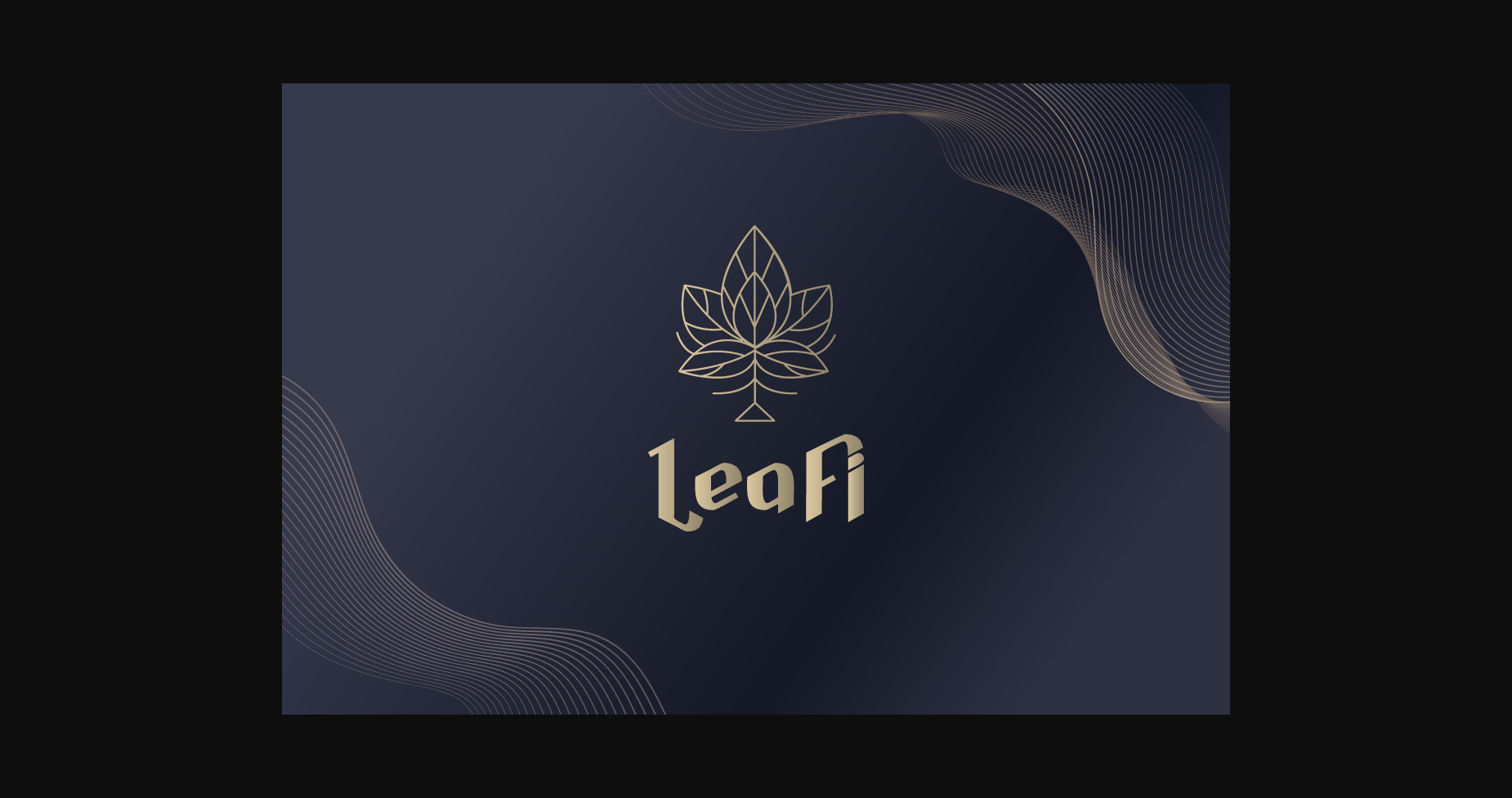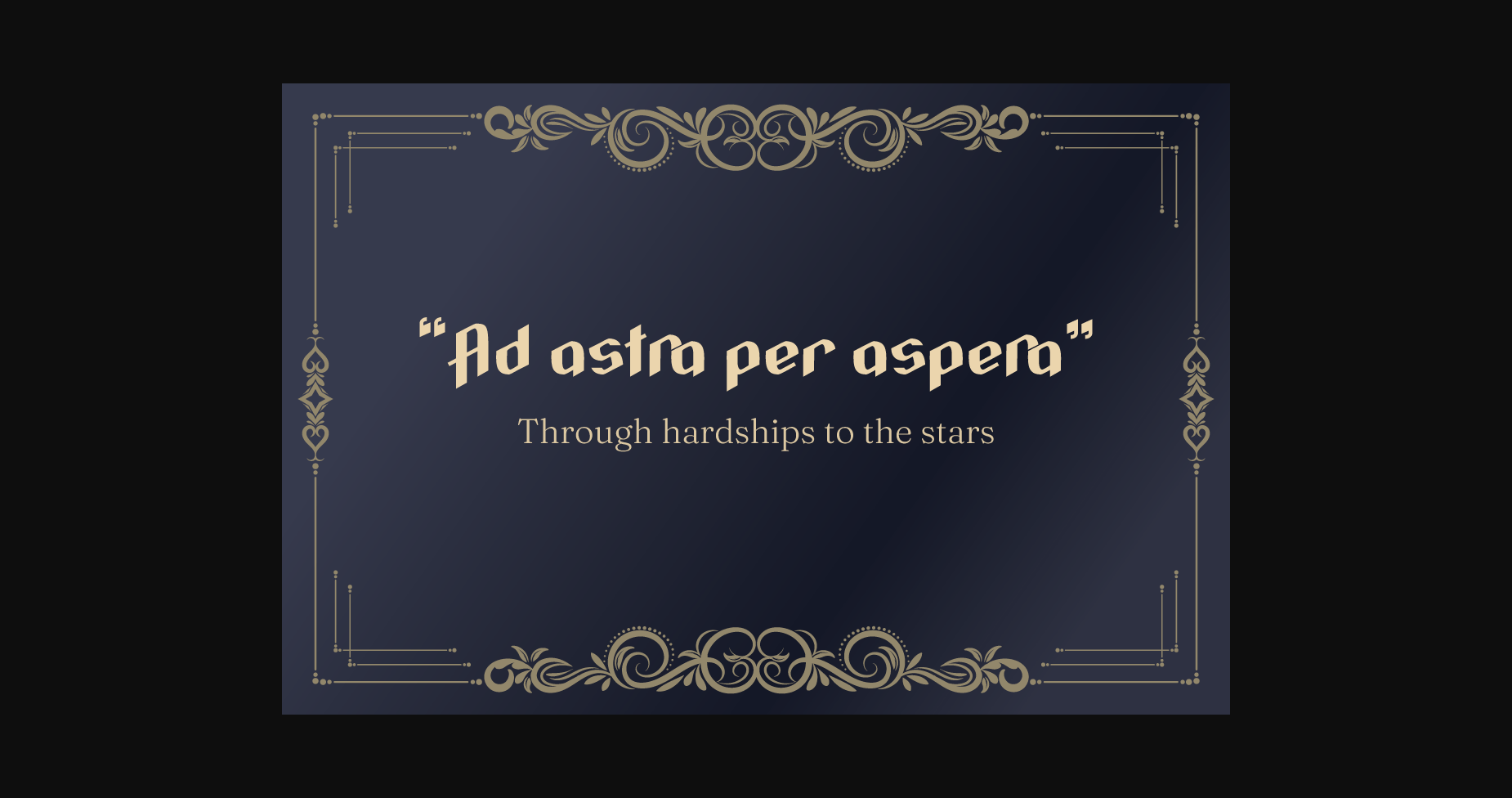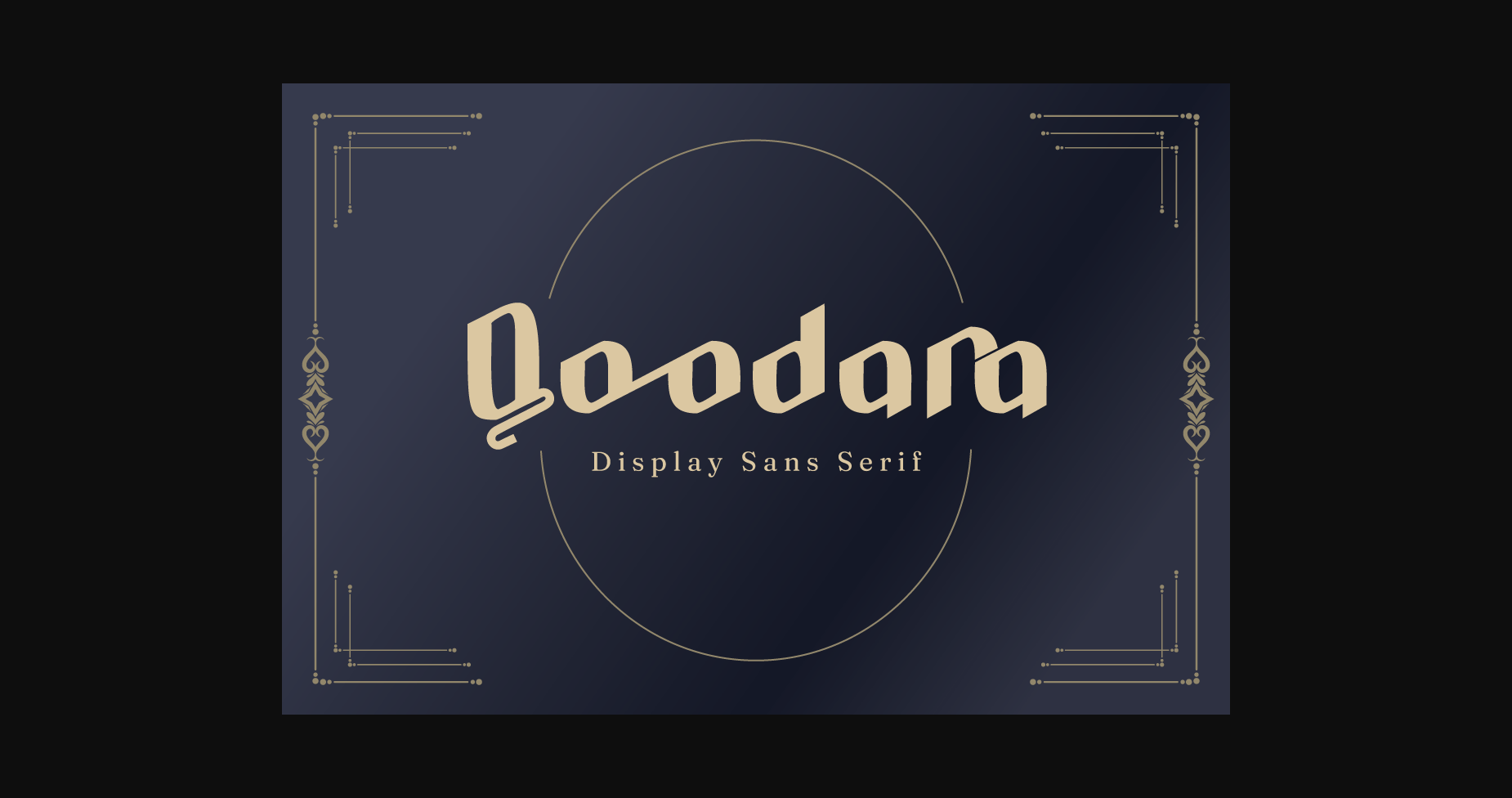
About Qoodara Font
Qoodara is a Display sans serif typeface that is suitable for strong and modern looks on your works.
Qoodara is perfect for a sports product, branding, logo, invitation, stationery, product packaging, merchandise, monogram, blog design, game titles, cute style designs, Book/Cover Titles and more.